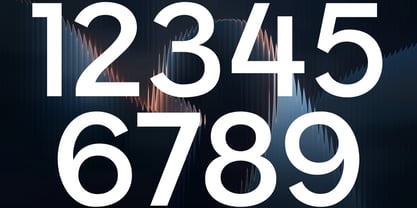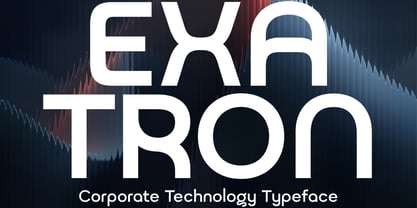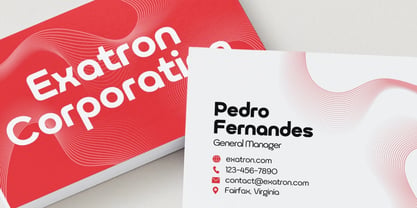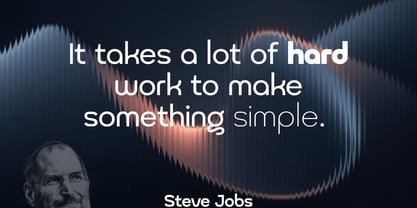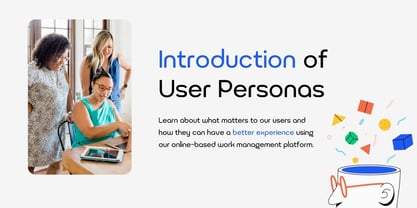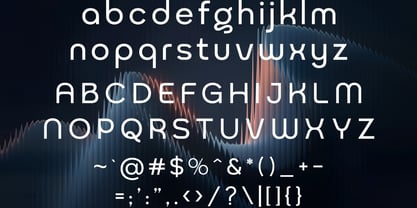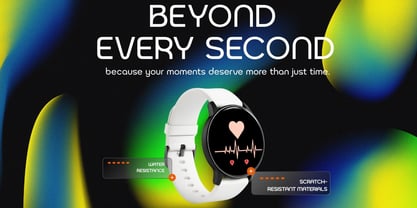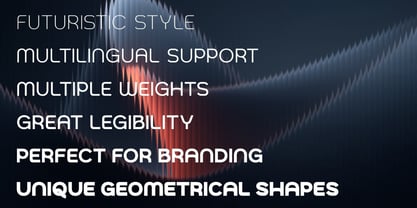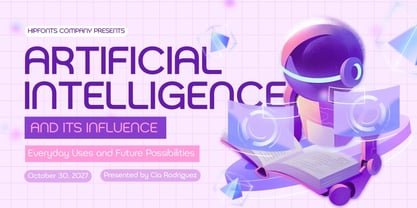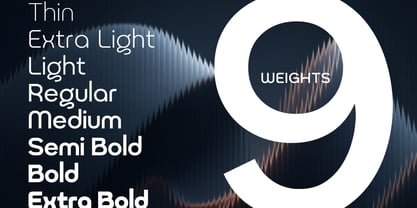
Exatron
The Exatron Font Family was designed by Igor Ovsyannykov and published by Hipfonts. Exatron contains 9 styles and family package options. More about this family
Step into the future of professional design with Exatron, a sleek corporate technology typeface built for today’s fast-moving, digitally driven world. Engineered with precision and clarity, Exatron blends clean geometry with contemporary minimalism to create a powerful visual voice for modern businesses. Its balanced structure and refined letterforms communicate innovation, stability, and forward-thinking — making it the perfect foundation for brands that want to look smart, confident, and future-ready. Designed for versatility, Exatron adapts seamlessly across both print and digital environments. Whether you're shaping a tech startup identity, building a corporate website, or designing polished business materials, this typeface ensures consistency and sophistication at every touchpoint.